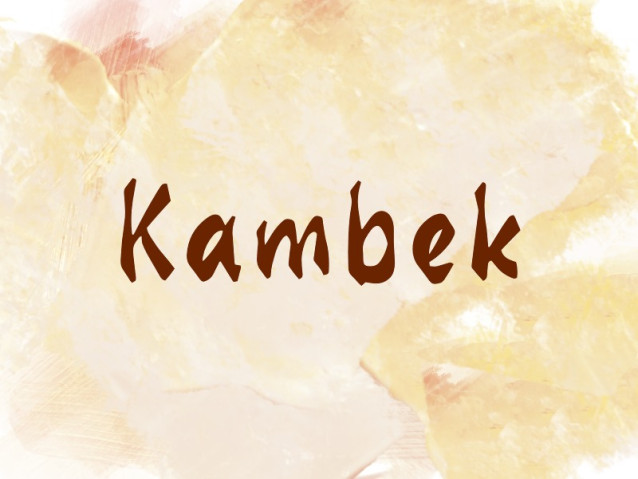
Kambek Font
Kambek Font is a unique display font that captures the essence of artistic calligraphy. With its hand-drawn feel and rhythmic strokes, it brings a sense of authenticity and creative flair to any design project.